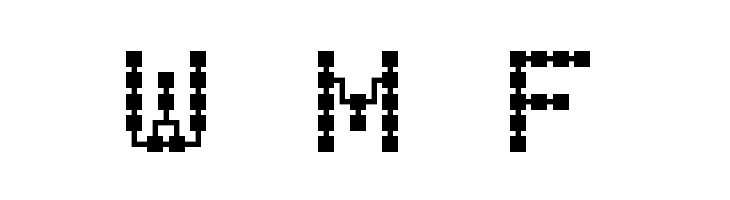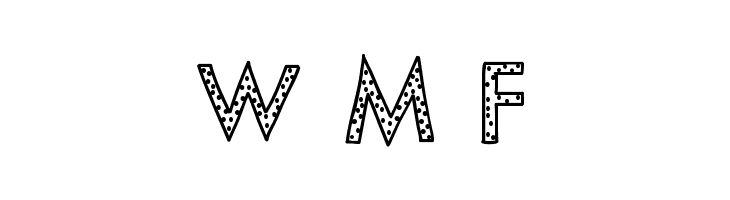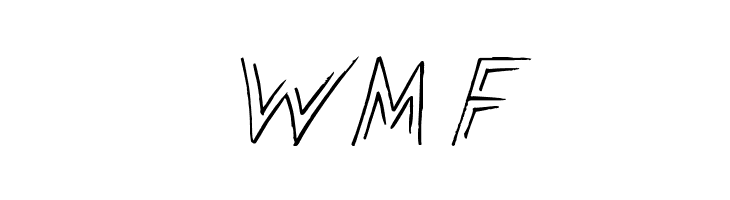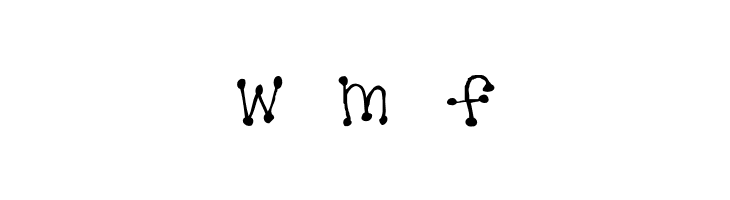
A pixelated font with a digital, retro style.
A bold, decorative font with a playful dotted pattern.
A dynamic, brush-like font with sharp, angular strokes and an artistic flair.
A decorative and playful font with intricate patterns and whimsical letterforms.
A bold, dynamic font with playful, rotated characters and a modern, whimsical style.
A modern, dotted font with a geometric, pixelated style.